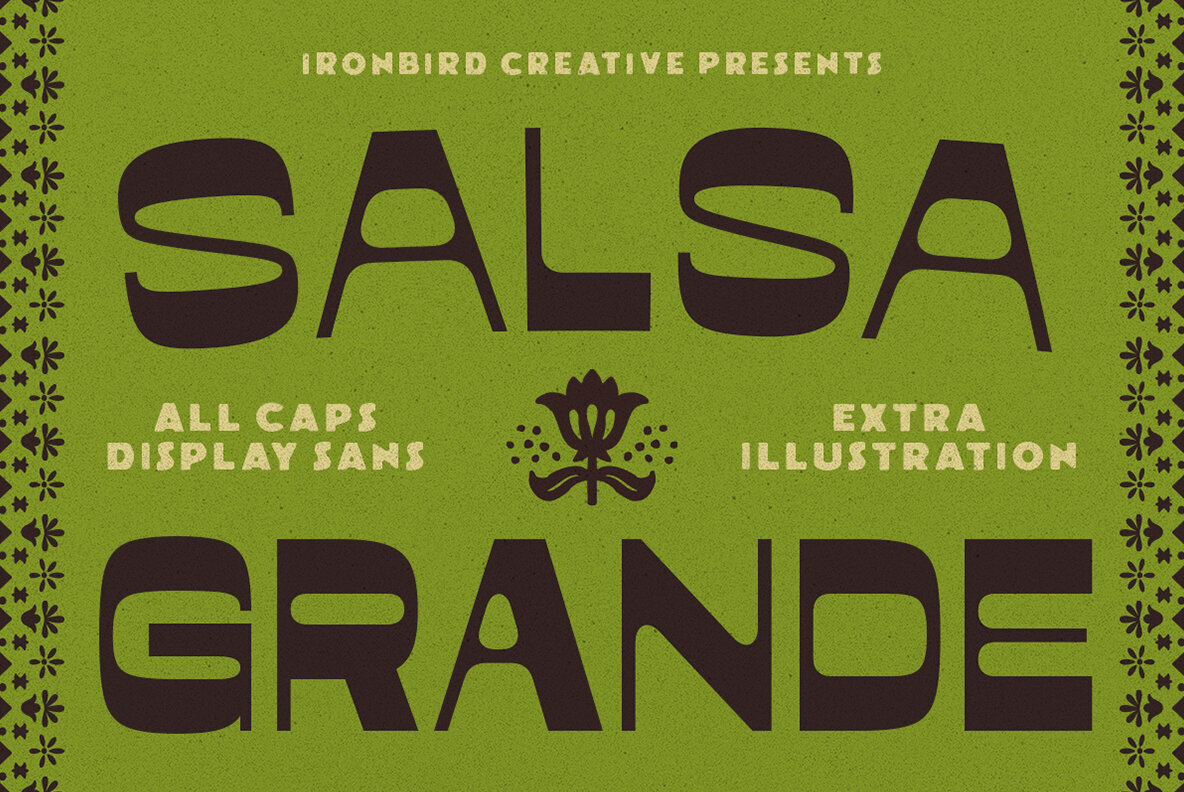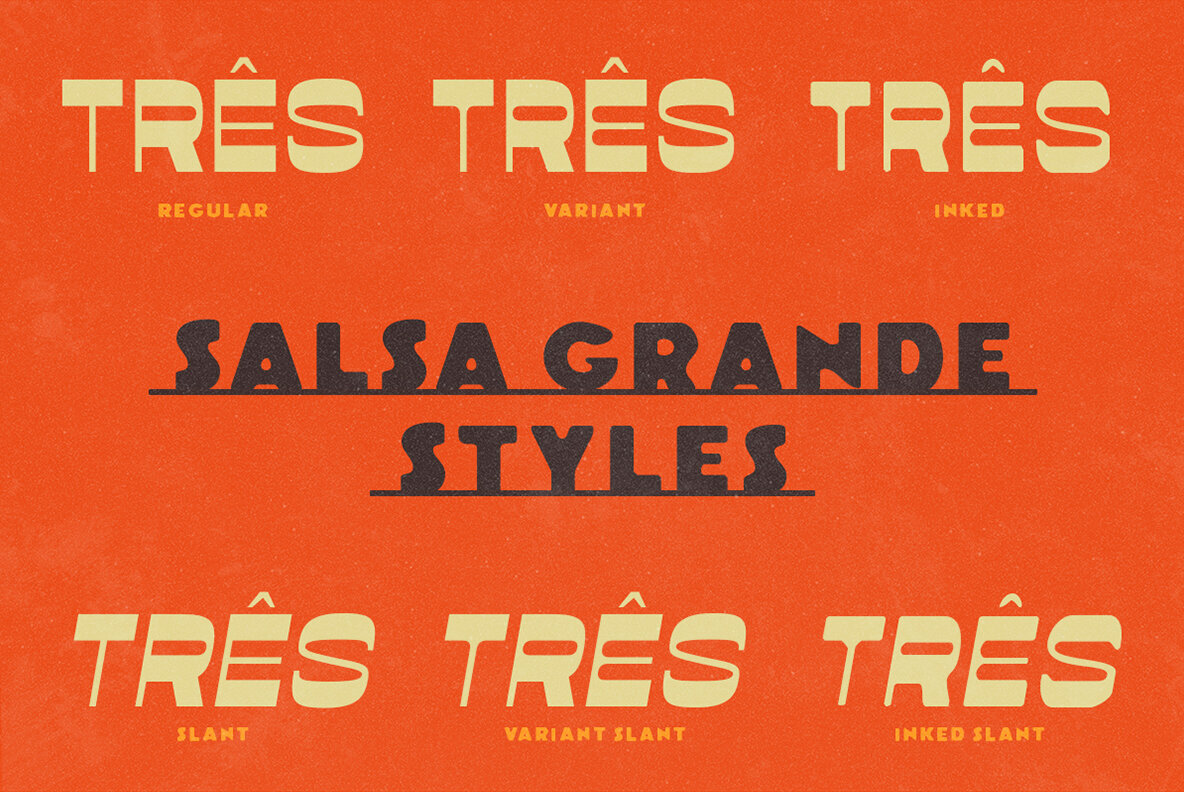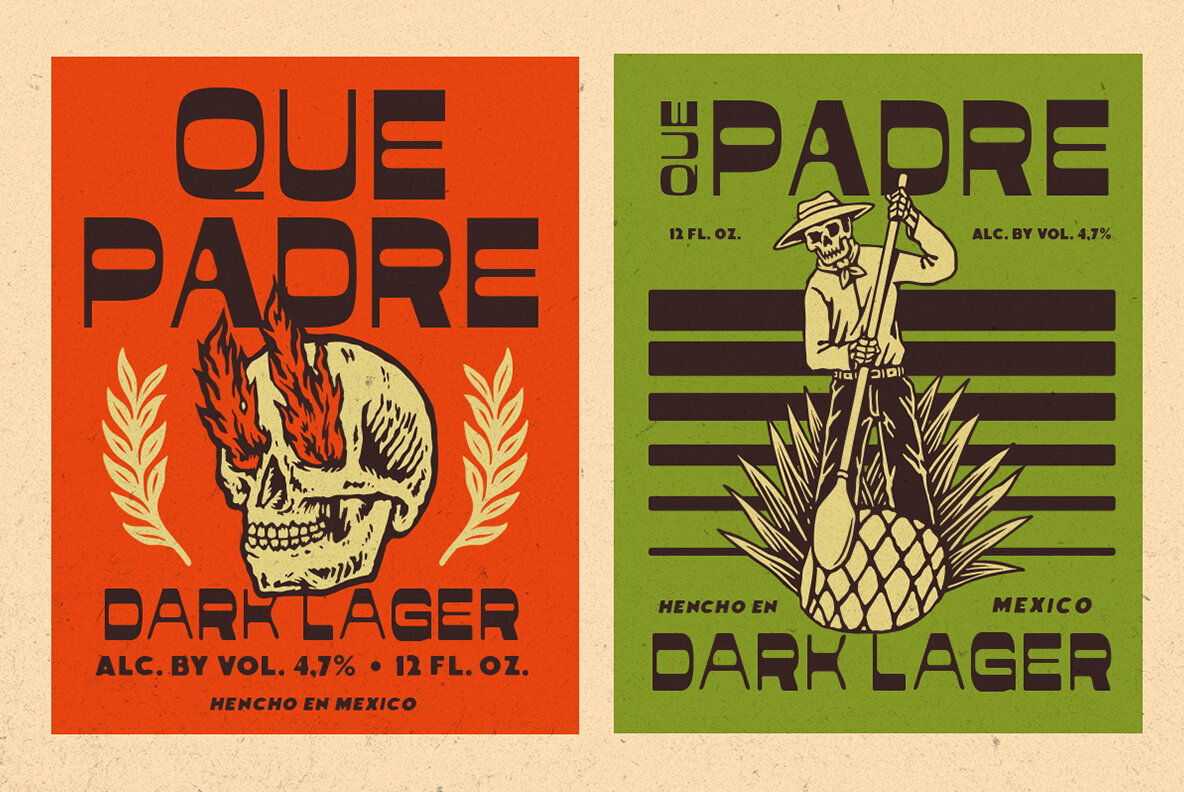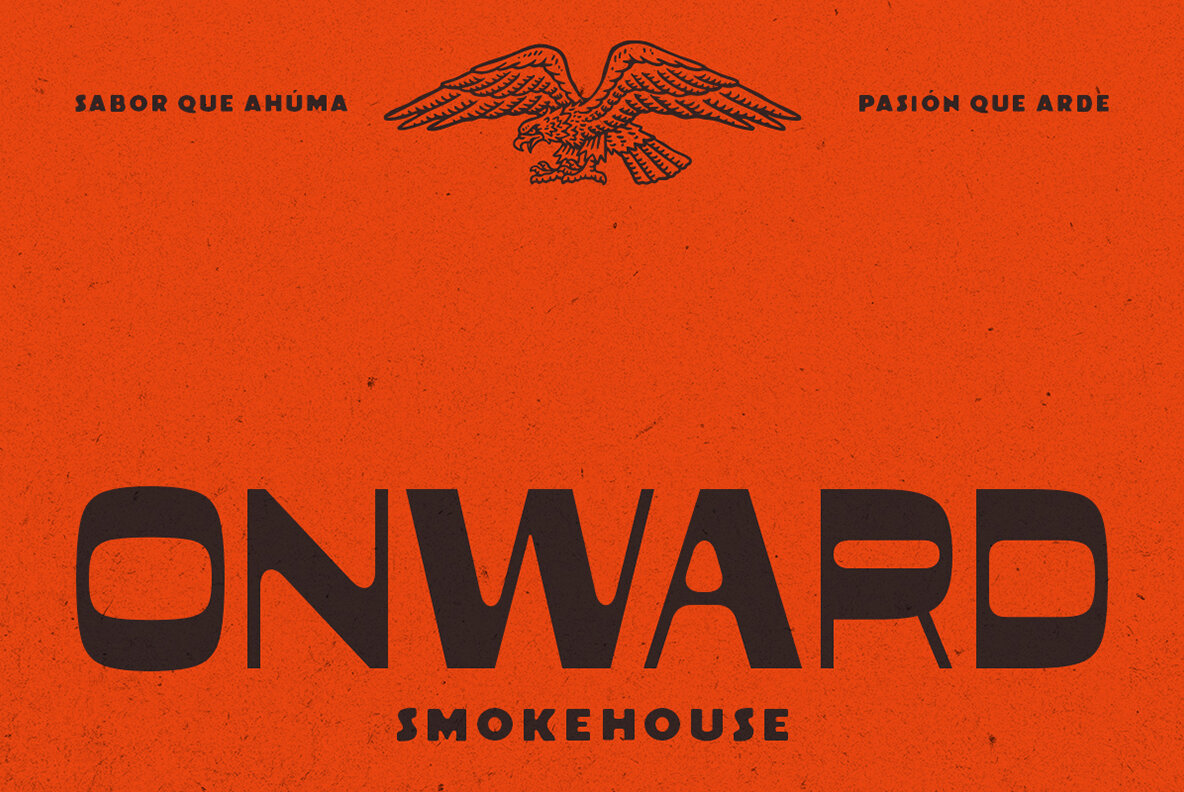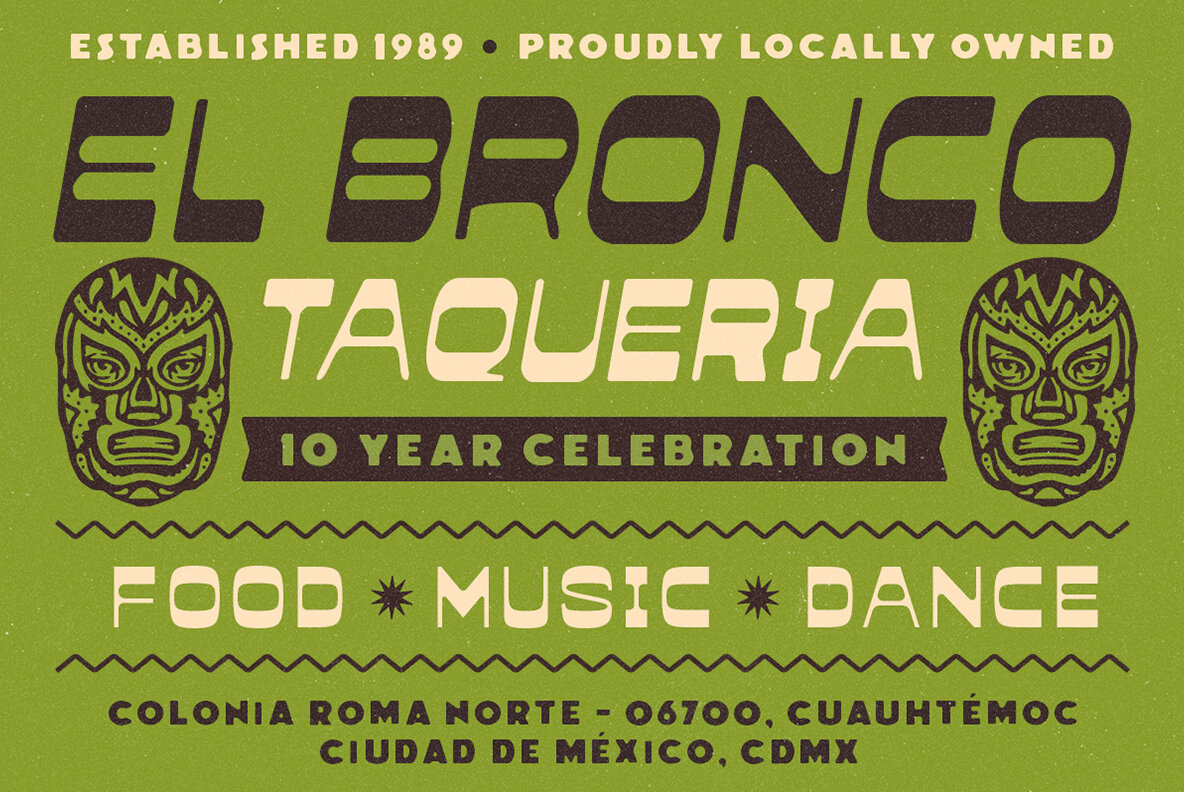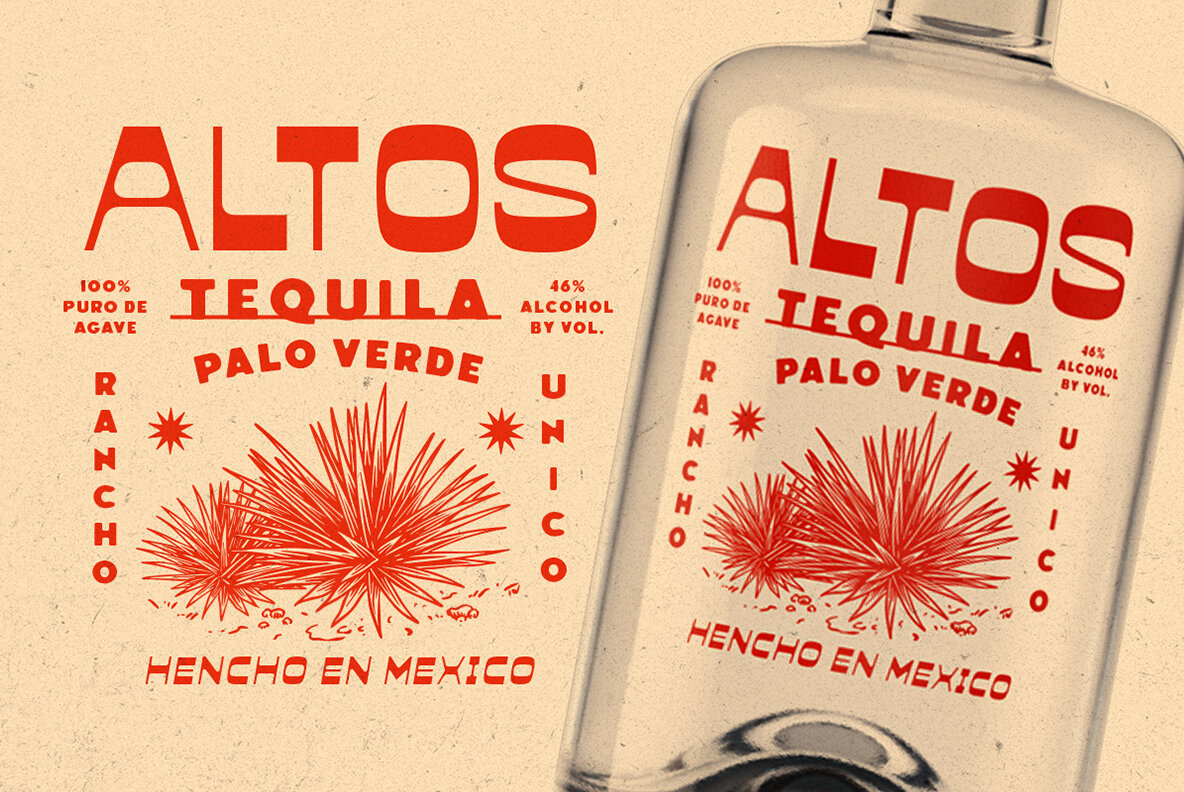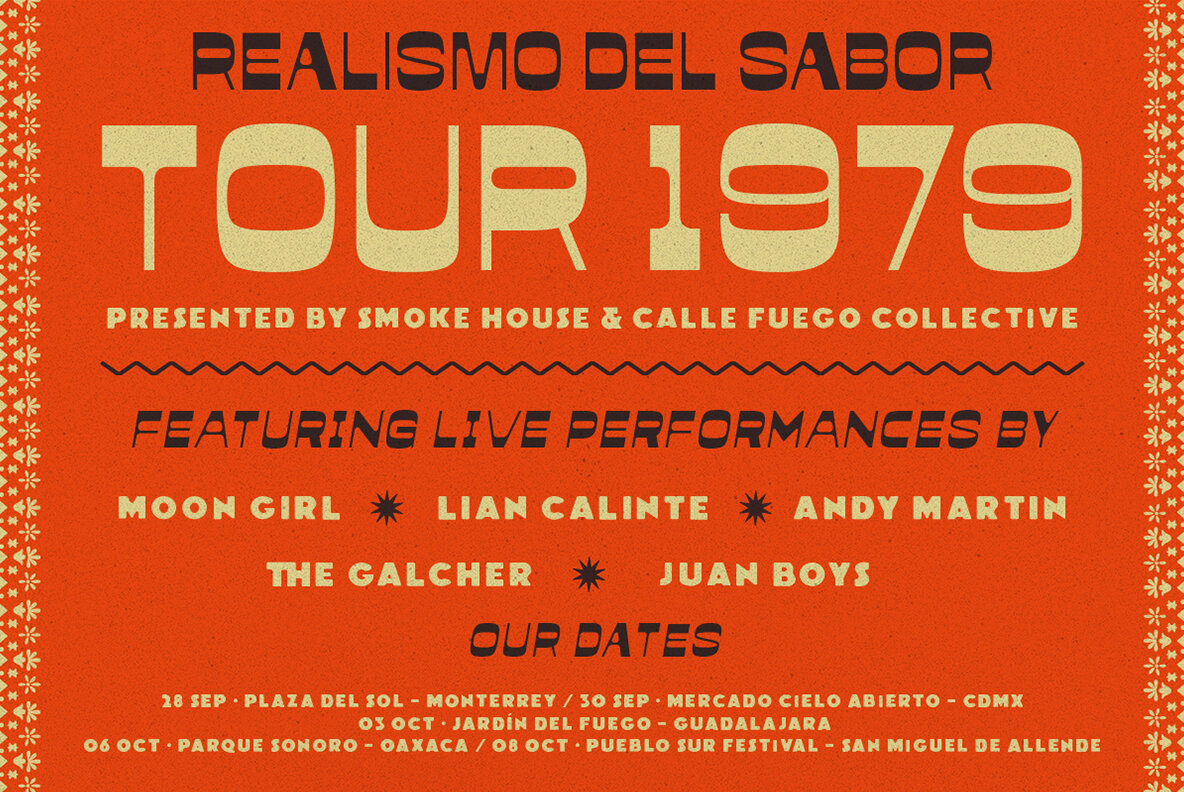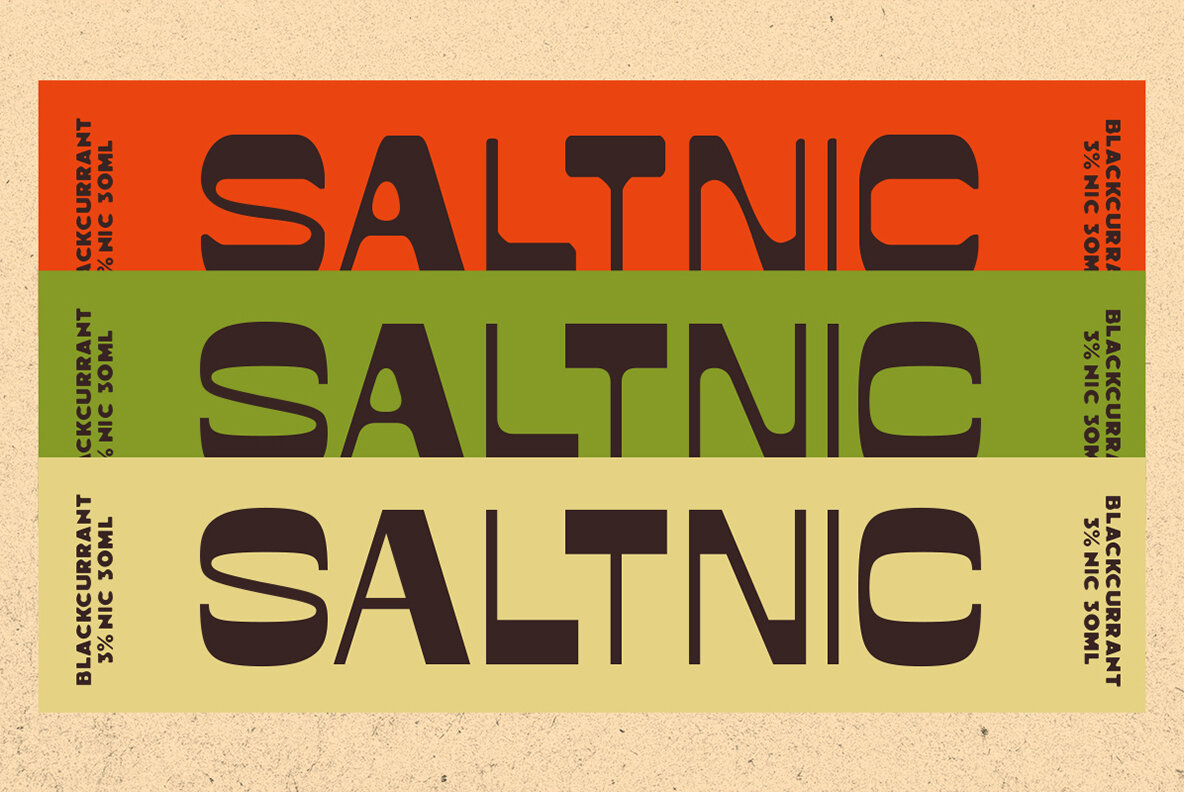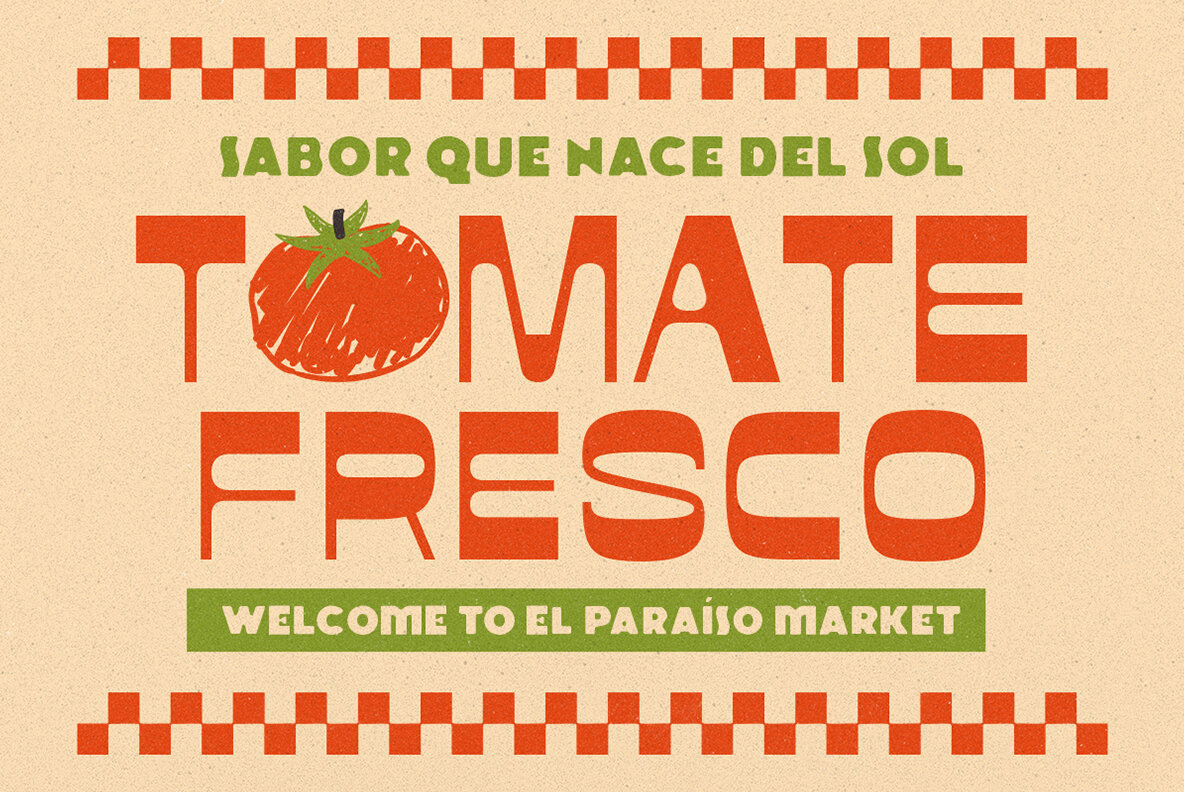
Salsa Grande Font
Salsa Grande Regular
Salsa Grande Inked
Salsa Grande Inked Slant
Salsa Grande Slant
Salsa Grande Variant
Salsa Grande Variant Slant
Infuse your design projects with a spirited touch using Salsa Grande, a boldly styled sans-serif font that channels a distinctive Mexican flair. This engaging typeface includes Regular, Variant, and Inked styles, each featuring a slanted version to cater to diverse creative needs.Salsa Grande: Vibrant Display Sans-Serif